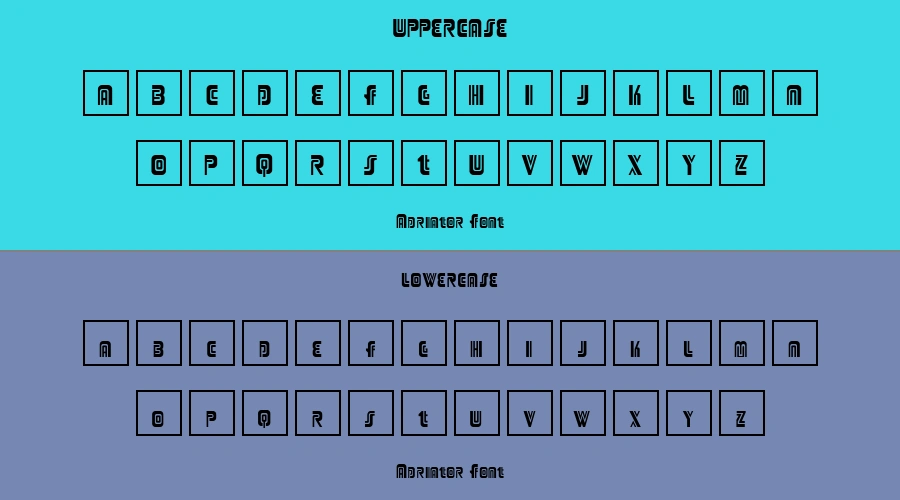
About Adriator Font
Designed with precision, Adriator Font merges fluid motion with durability in every character. This versatility makes it particularly effective for book design, where clarity and practical utility directly impact communication quality. Each letterform demonstrates meticulous craftsmanship.
Technical excellence shines through elements like tapered strokes and discretionary ligatures, enhancing typographic versatility. In packaging settings, Adriator Font proves its worth through superior scanning accuracy. The thoughtful execution of stroke contrast and aspirational quality ensures professional results.